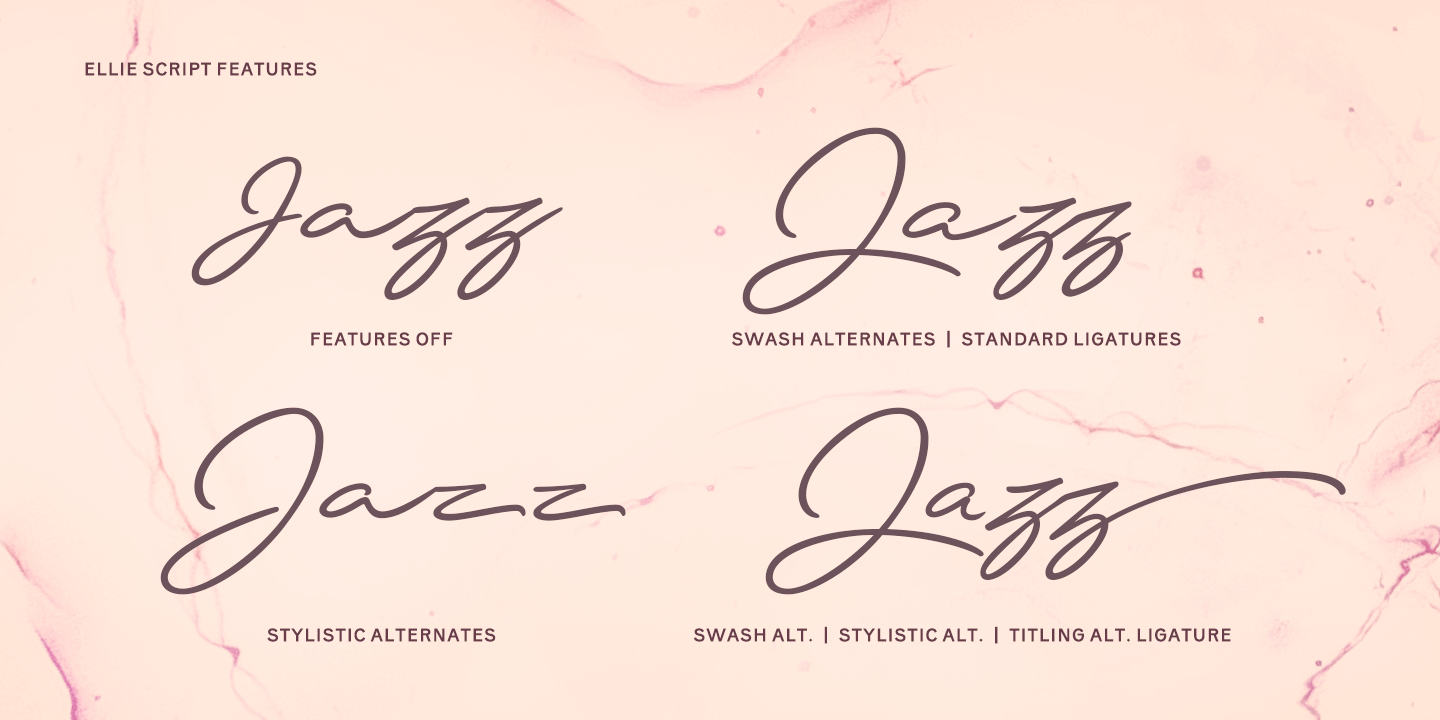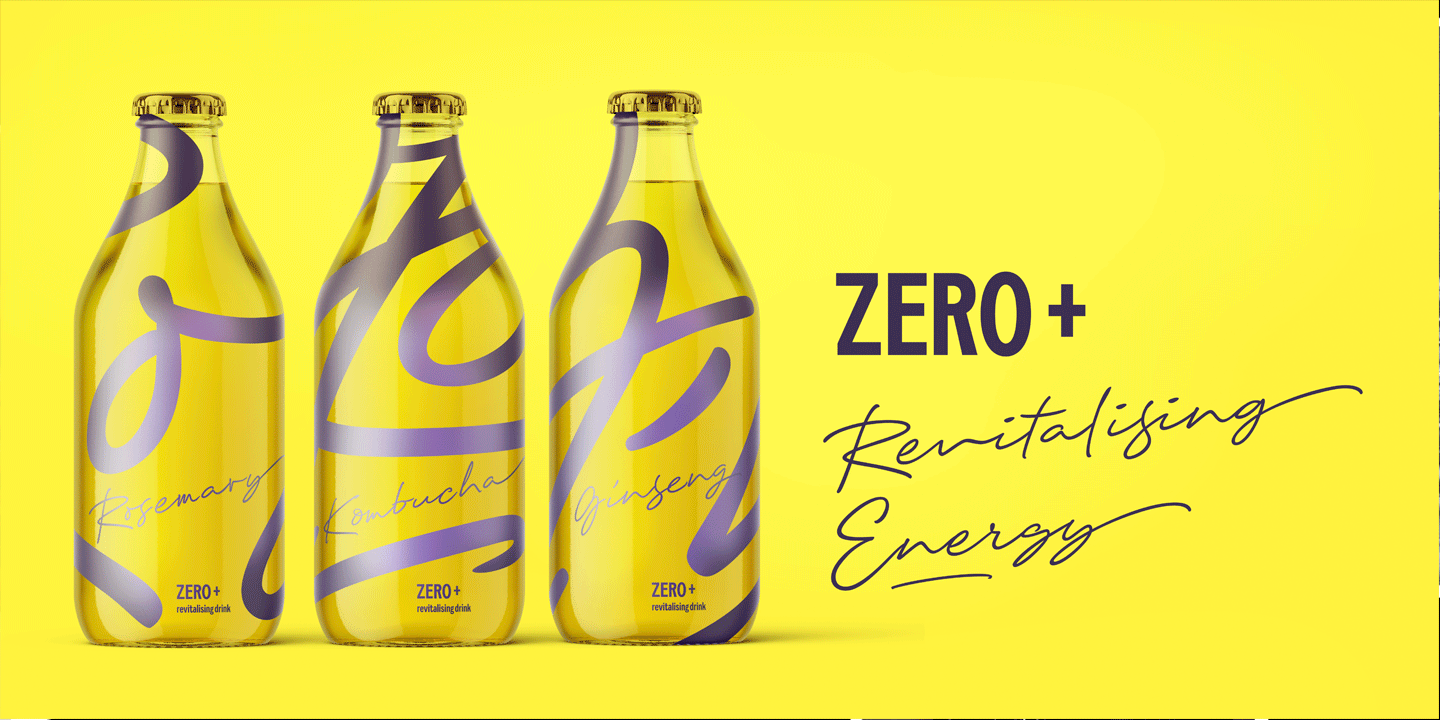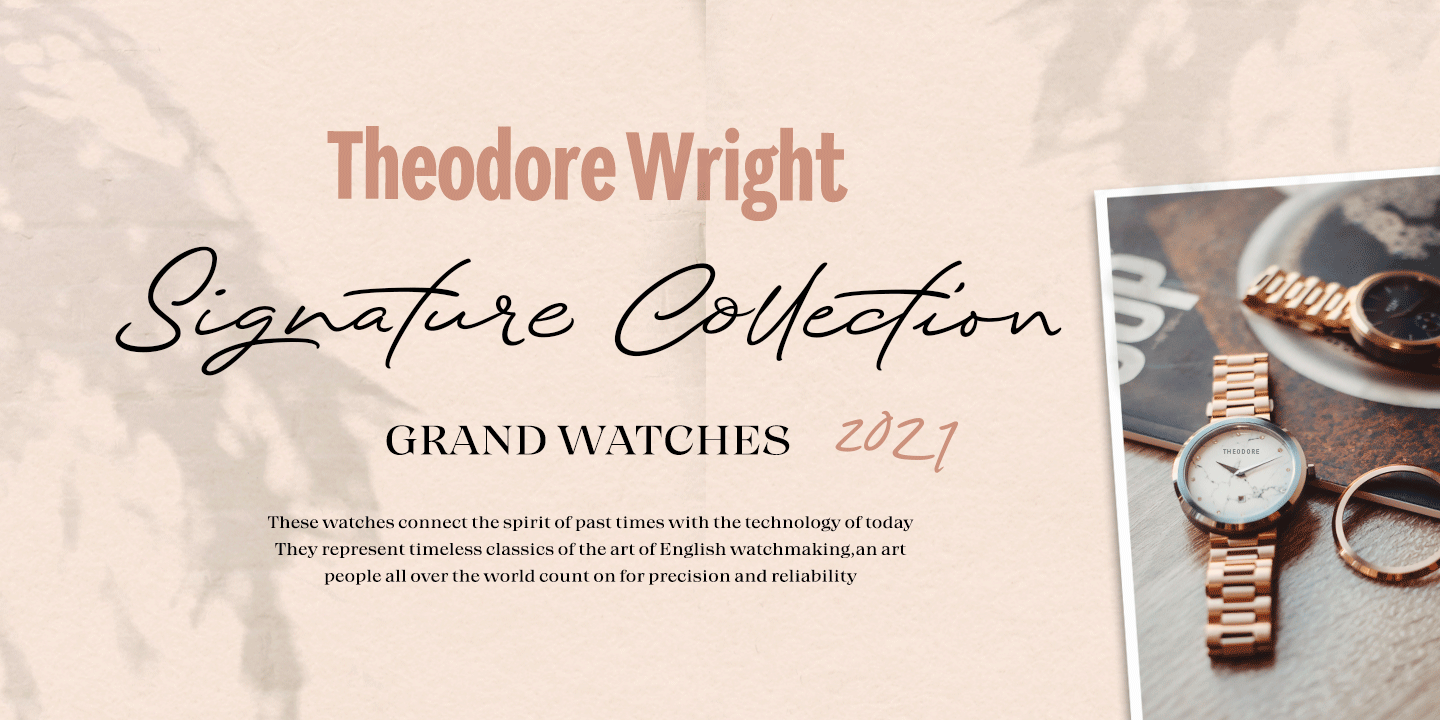
About Ellie Script
Ellie Script is a hand drawn signature style typeface. Ellie is great for branding, headlines, invitation cards, poems, posters or as a logotype. Boasting over 600 glyphs, Ellie is equipped with handy OpenType features – Contextual Alternates and Standard…